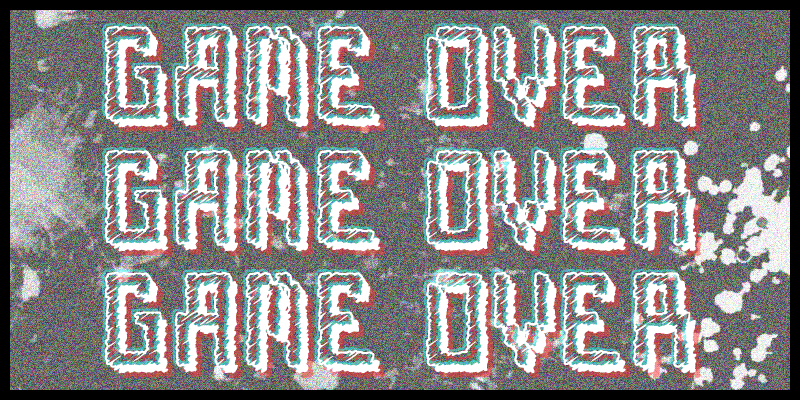
Preview and download Arcade Nightmare Font. Created by Frederic in Fancy Eroded styles with Free for personal use license.
Arcade Nightmare is (another font) inspired by retro gaming. They still don't make games like this anymore! This font is free for personal use. If you wish to use it for a commercial purpose, please contact me: contact [at] fthafm [dot] com Facebook: http://www.facebook.com/fthafm | Website: http://www.fthafm.com/ |